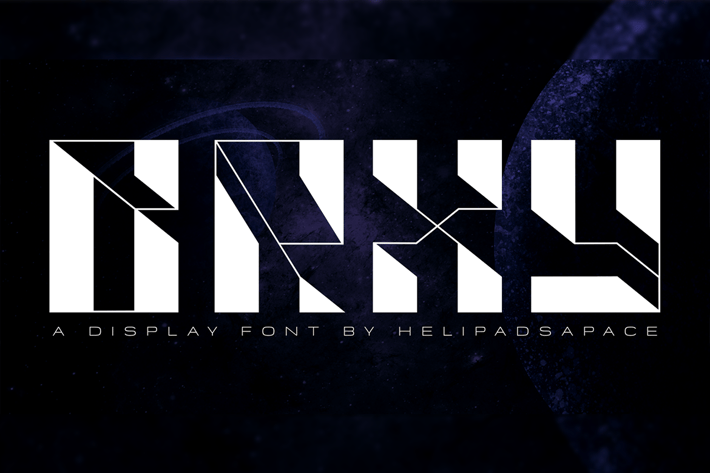
HS Broxy - An Experimental Display Font
Introducing, HS Broxy An Experimental Display Font with the contrast geometric touch. It looks authentic and personality that can be used for all your project needs.This font can be used at any time and on any project.Make your design more look futuristic.
So, HS Broxy Font can't wait to give its touch to all your design projects such as magazine, book, poster design, movie, personal branding, promotional materials, logotype, product packaging, etc.